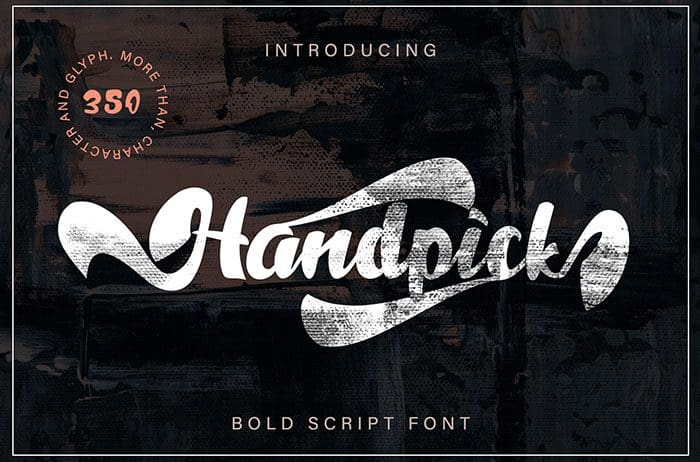
Free Handpick Script Font
Handpick Script Font
Free Handpick script font is perfect for a variety of creative projects! such as for branding projects, logos, posters, clothing, Website, advertisement, magazine, youtube, game and many more. Created this font by Thomas Aradea. You can also search more freeĀ Fonts.